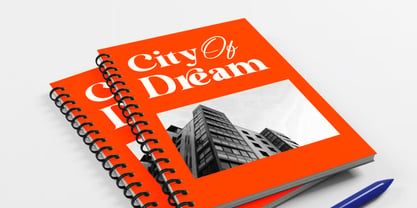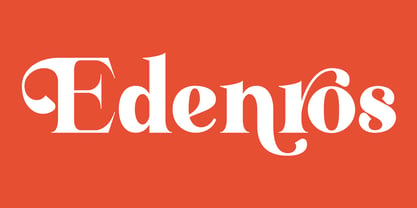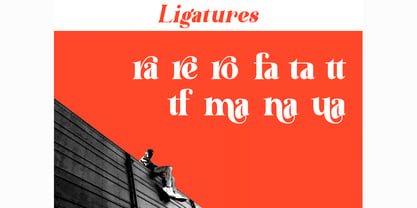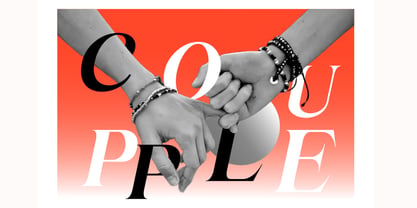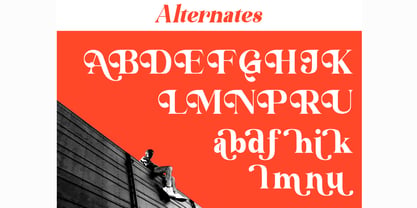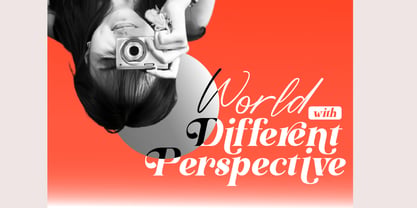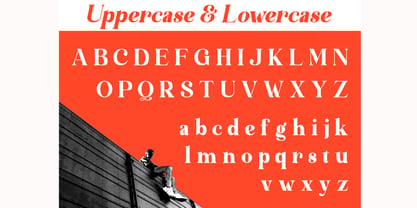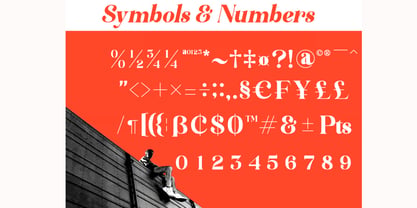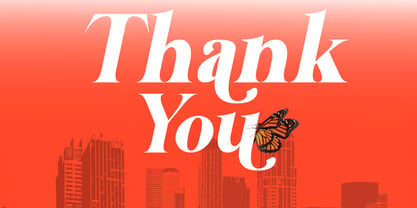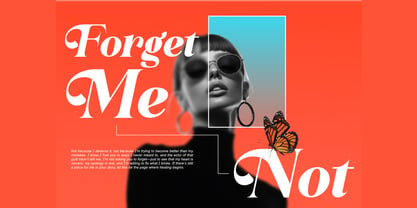
Edenros
Edenros is a premium modern serif display font crafted for designers who want to bring a distinctive, elegant, and high-end feel to their creative projects. Combining contemporary serif styling with refined display proportions, Edenros creates a sophisticated typographic presence that instantly elevates logos, headlines, branding, packaging, and editorial compositions.
Designed with versatility and visual impact in mind, Edenros offers a polished aesthetic that works beautifully across both modern and classic design styles. Its refined letterforms make it an excellent choice for luxury branding, fashion identities, magazine titles, advertising campaigns, product packaging, wedding designs, and premium visual communication.
With Regular and Italic styles, along with elegant ligatures and alternate characters, Edenros gives designers the creative flexibility to build unique and memorable typography. Whether you're creating a powerful logo or an elegant editorial headline, this modern serif typeface delivers sophistication and distinction.
✿ Key Features:
• Premium Modern Serif Design: A sophisticated display typeface created for high-end and contemporary projects.
• Regular & Italic Styles: Two versatile styles for expressive and dynamic typography.
• Stylish Ligatures: Beautiful letter combinations that add elegance and individuality.
• Alternate Characters: Creative alternatives for customized logos, headlines, and display typography.
• Multilingual Support: Suitable for a wider range of international design projects.
• PUA Encoded Characters: Special characters can be accessed without additional design software.
• Display-Ready Letterforms: Designed to make headlines, titles, logos, and prominent text stand out.
✿ Perfect For:
• Luxury Branding & Logo Design: Create sophisticated and distinctive brand identities.
• Fashion & Beauty Branding: Perfect for fashion labels, cosmetics, skincare, and premium lifestyle brands.
• Editorial & Magazine Design: Ideal for magazine covers, headlines, titles, and high-end editorial layouts.
• Product Packaging: Add a premium typographic finish to perfumes, cosmetics, candles, and boutique products.
• Advertising & Campaigns: Create eye-catching headlines and sophisticated promotional graphics.
• Wedding Invitations: Bring an elegant and luxurious touch to invitations, menus, and event stationery.
• Book Covers: Perfect for novels, fashion books, journals, and premium publications.
• Social Media Branding: Enhance branded posts, quotes, campaigns, and promotional content.
Elevate your typography with Edenros—a premium modern serif display font featuring Regular and Italic styles, stylish ligatures, alternate characters, multilingual support, and PUA encoded characters. Perfect for luxury branding, fashion, editorial design, magazine covers, packaging, advertising, wedding stationery, logos, and premium creative projects that demand a distinctive and sophisticated typographic presence.